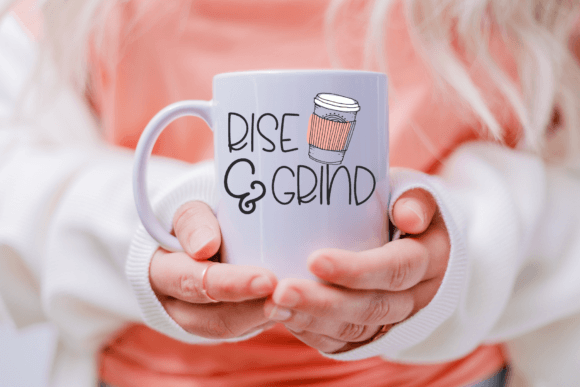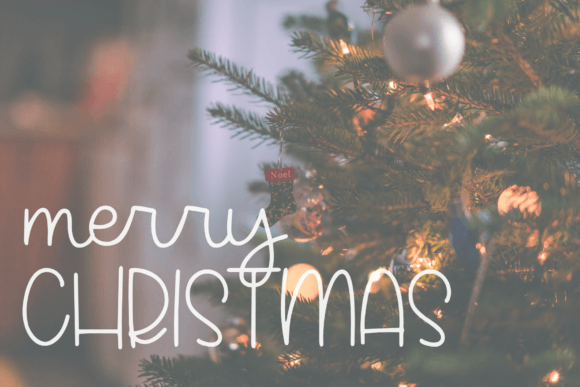
Sugar and Honey Font
Sugar and Honey is a sweet and adorable handwritten font. This cute typeface is perfect for fun logos, greeting cards, t-shirt designs, stickers, social media, and any craft or project for that hand-made look.